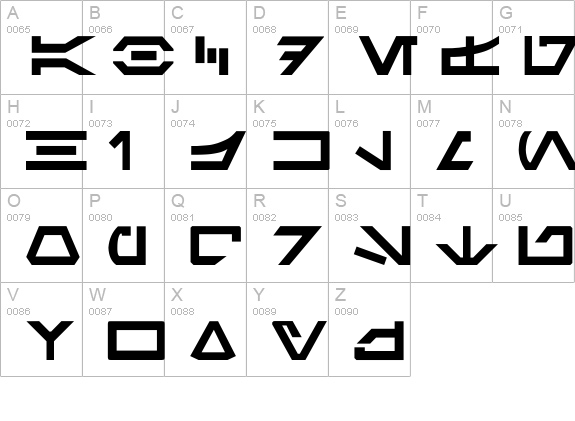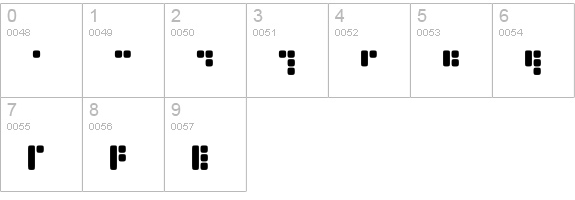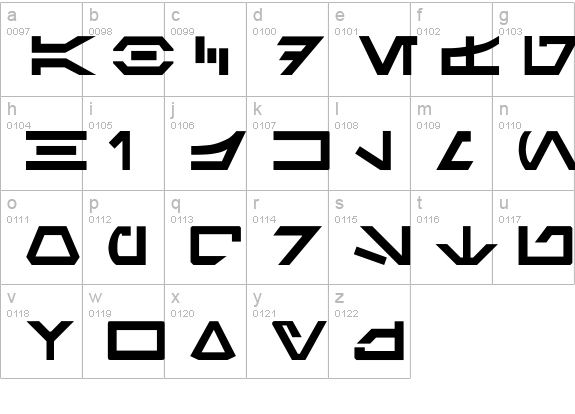
Aurek-Besh Font Details
The Aurek-Besh font is a captivating and unique typeface inspired by the writing system used in a galaxy far, far away. Its intricate design and futuristic aesthetic make it perfect for adding a touch of otherworldly charm to your projects. Whether you're a fan of space adventures or simply appreciate the artistry of a well-crafted font, Aurek-Besh is sure to impress. Best of all, Aurek-Besh is available for free download at FontsMarket.com. This means you can easily incorporate this striking font into your designs without any cost, making it a valuable addition to your creative toolbox. So go ahead and explore the endless possibilities that Aurek-Besh has to offer, and let your imagination soar to new galaxies with this visually stunning typeface.